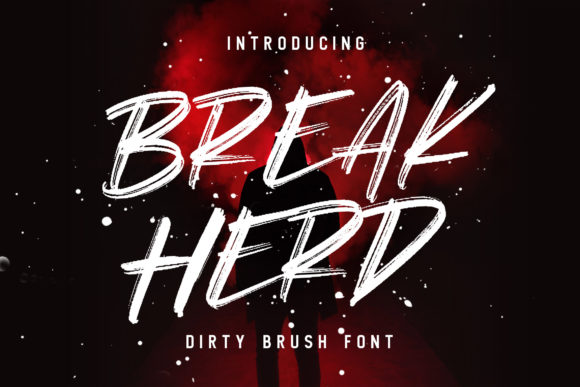
Unleash Your Creativity with Break Herd Font
A First Impression of Break Herd
Break Herd is a bold, eye-catching font designed specifically for flashy posters, wacky product presentations, and any project that needs a dash of creativity. Its unique style is sure to grab attention and leave a lasting impression. In this article, I’ll share my honest review of Break Herd, provide a practical guide on how to use it, and explore similar fonts that you might enjoy.
My Honest Review of Break Herd
Here’s what I love about Break Herd:
- ✨ Unique and quirky design: Break Herd’s distinctive style is perfect for designers looking to add some personality to their projects.
- 🎉 Highly versatile: Break Herd can be used for a wide range of projects, from posters and presentations to social media graphics and more.
While Break Herd is an excellent font, there are a few minor quirks to be aware of:
- 🤔 Limited legibility at small sizes: As with many display fonts, Break Herd can be difficult to read at smaller sizes. It’s best used for headlines or titles.
The Backstory Behind Break Herd
Break Herd was designed with the goal of creating a font that’s both fun and functional. The designer wanted to create a font that would allow users to add a touch of personality to their designs, without sacrificing readability. The result is a font that’s perfect for creative projects and attention-grabbing designs.
| Font Name | Break Herd Font |
| Author | Blankids Studio |
| What type of projects is Break Herd best suited for? | Break Herd is perfect for flashy posters, wacky product presentations, and any project that needs a dash of creativity. |
Overall, Break Herd is an excellent font that’s sure to add a touch of creativity to your designs. With its unique style, ease of use, and high versatility, it’s a great choice for designers, crafters, and creative hobbyists alike.